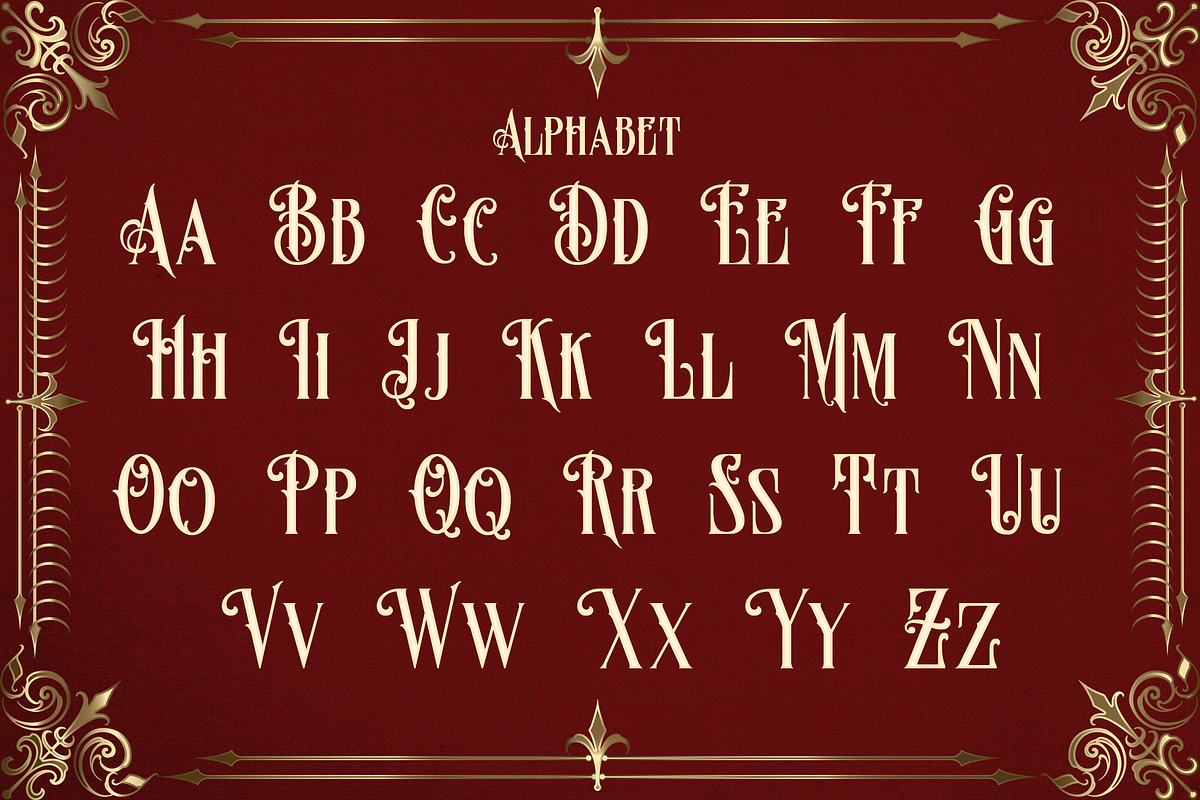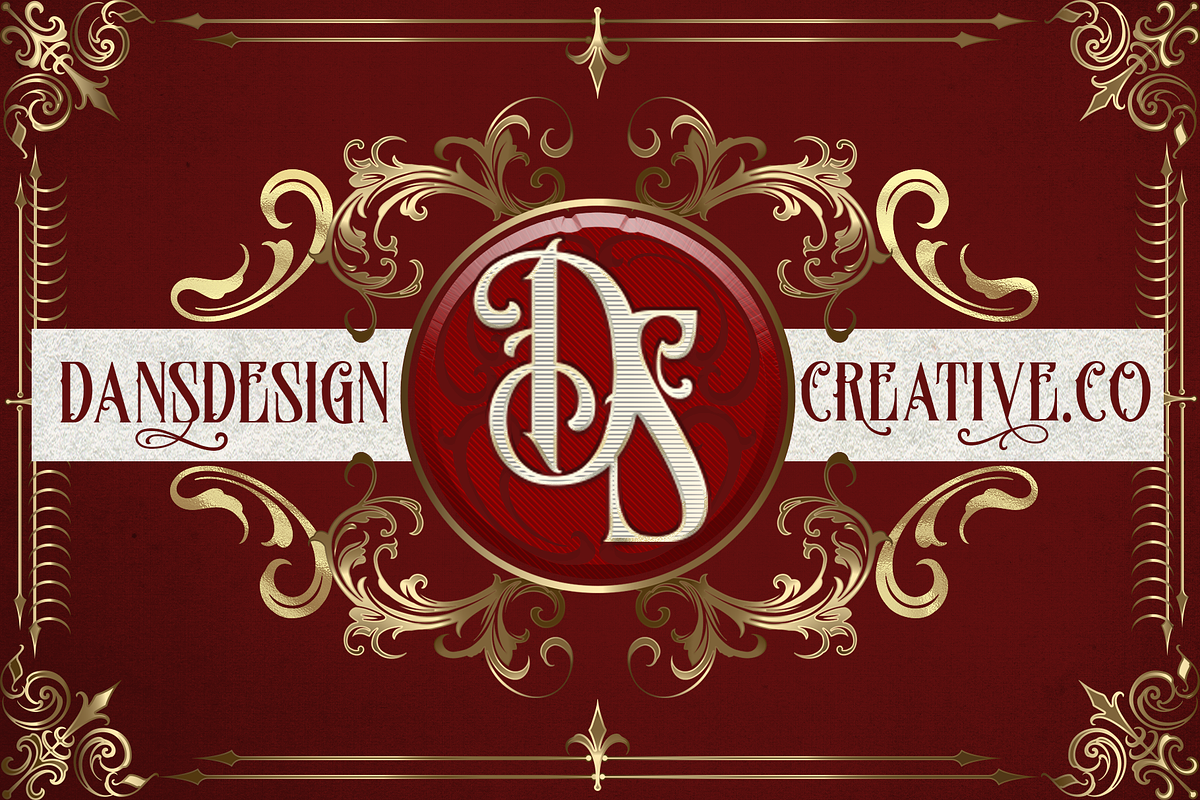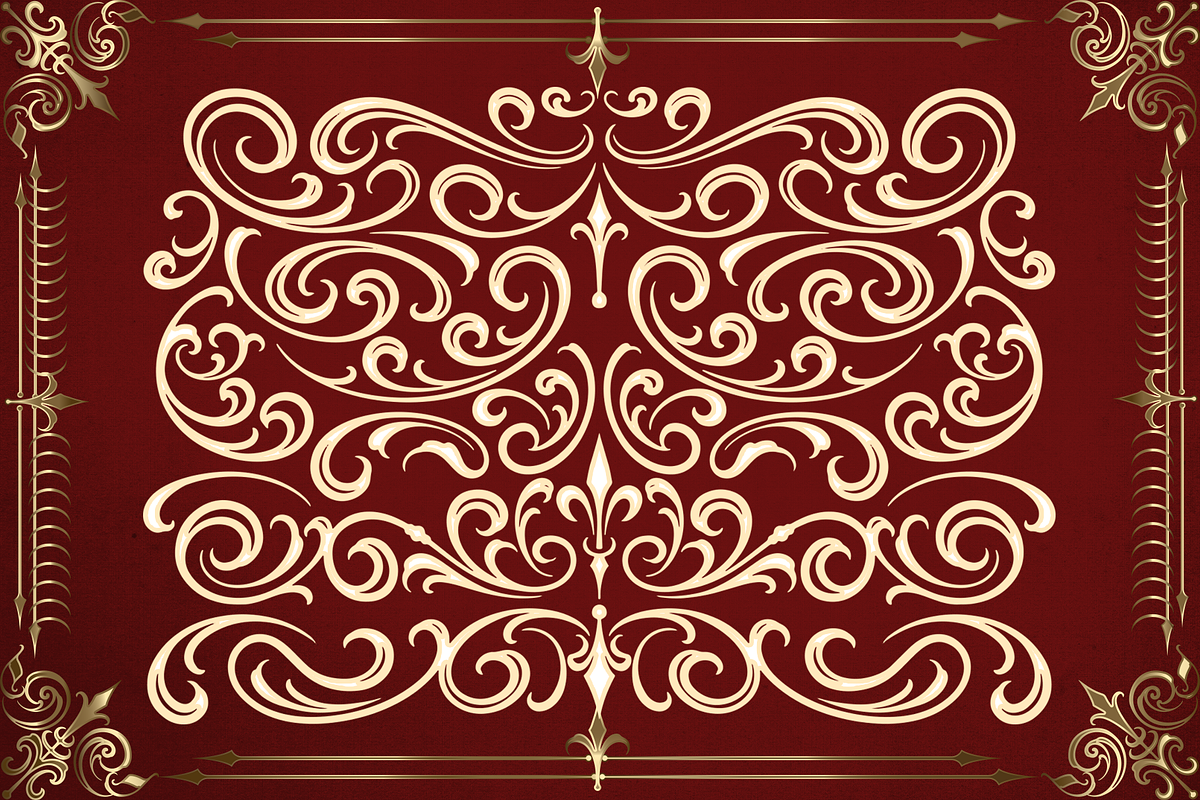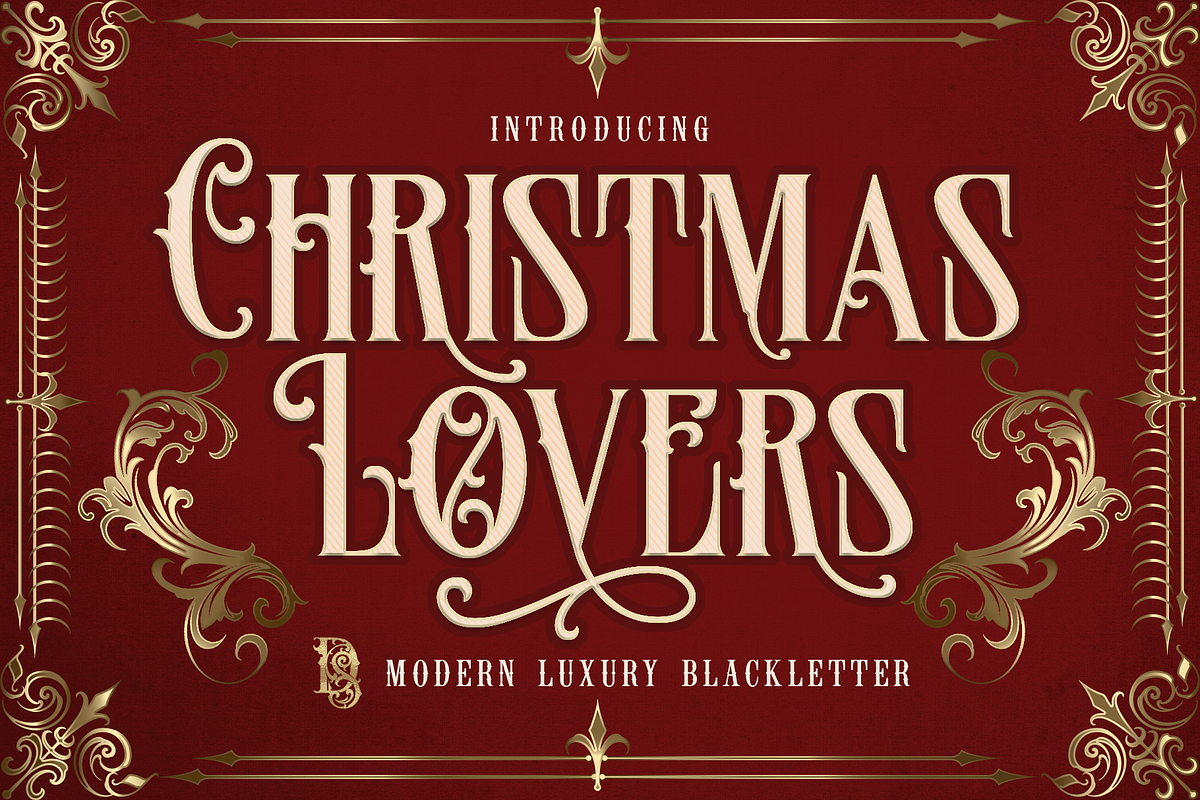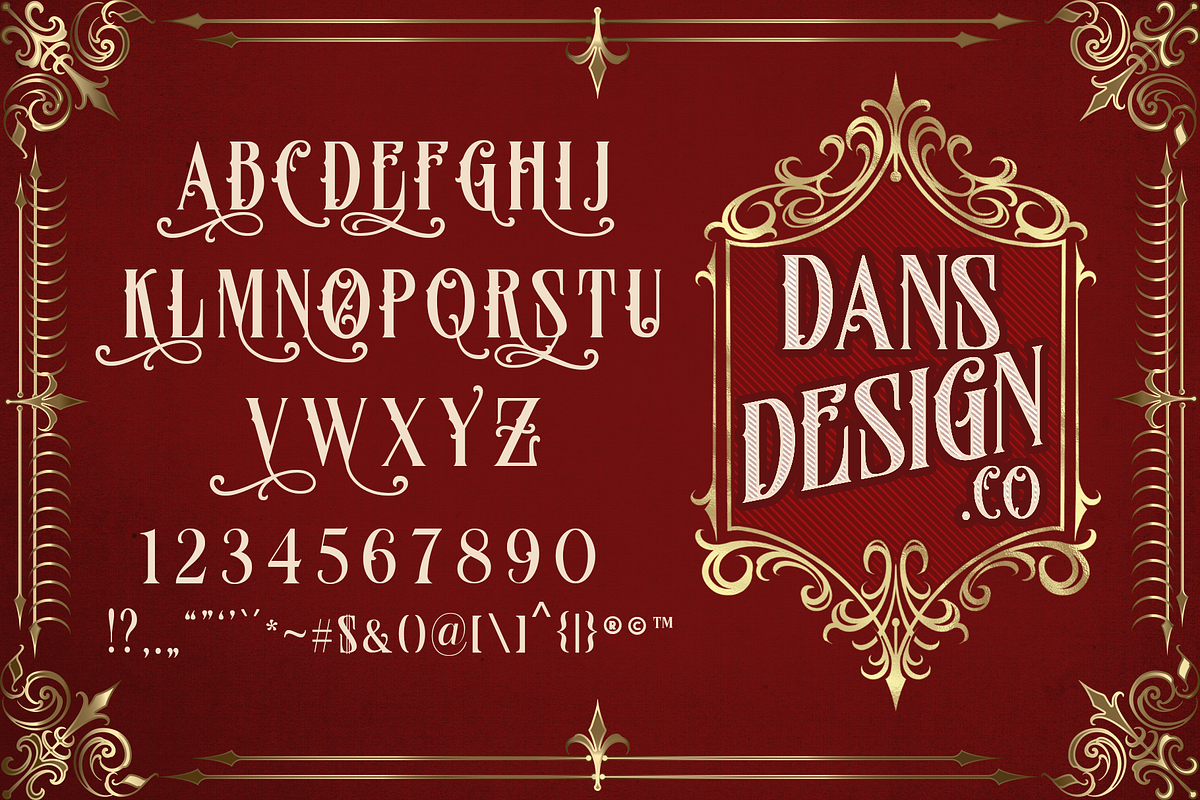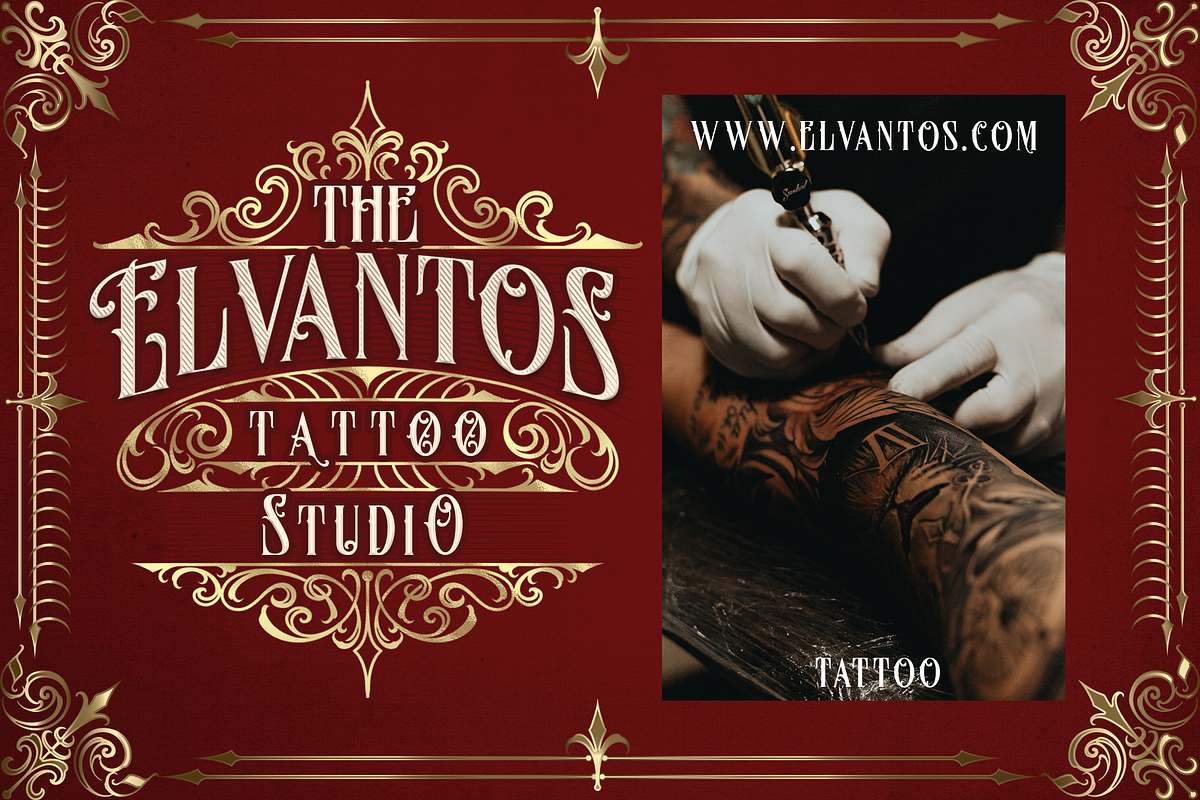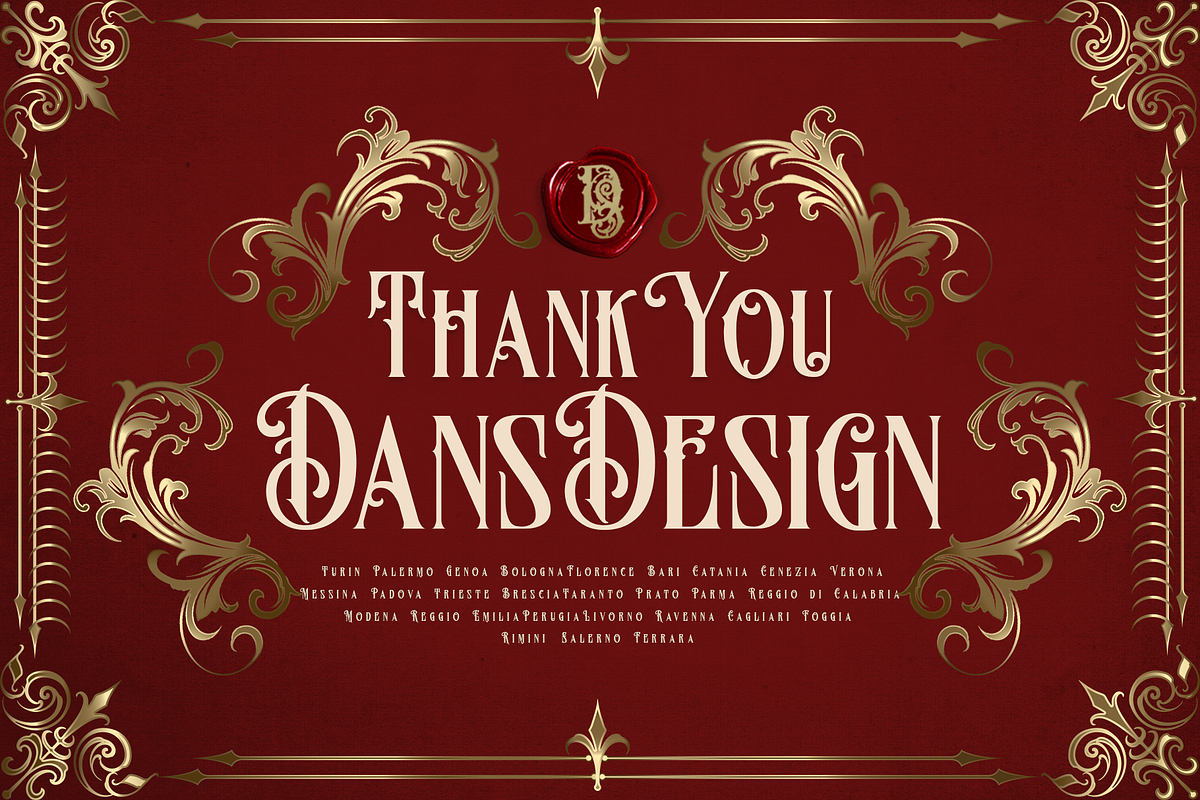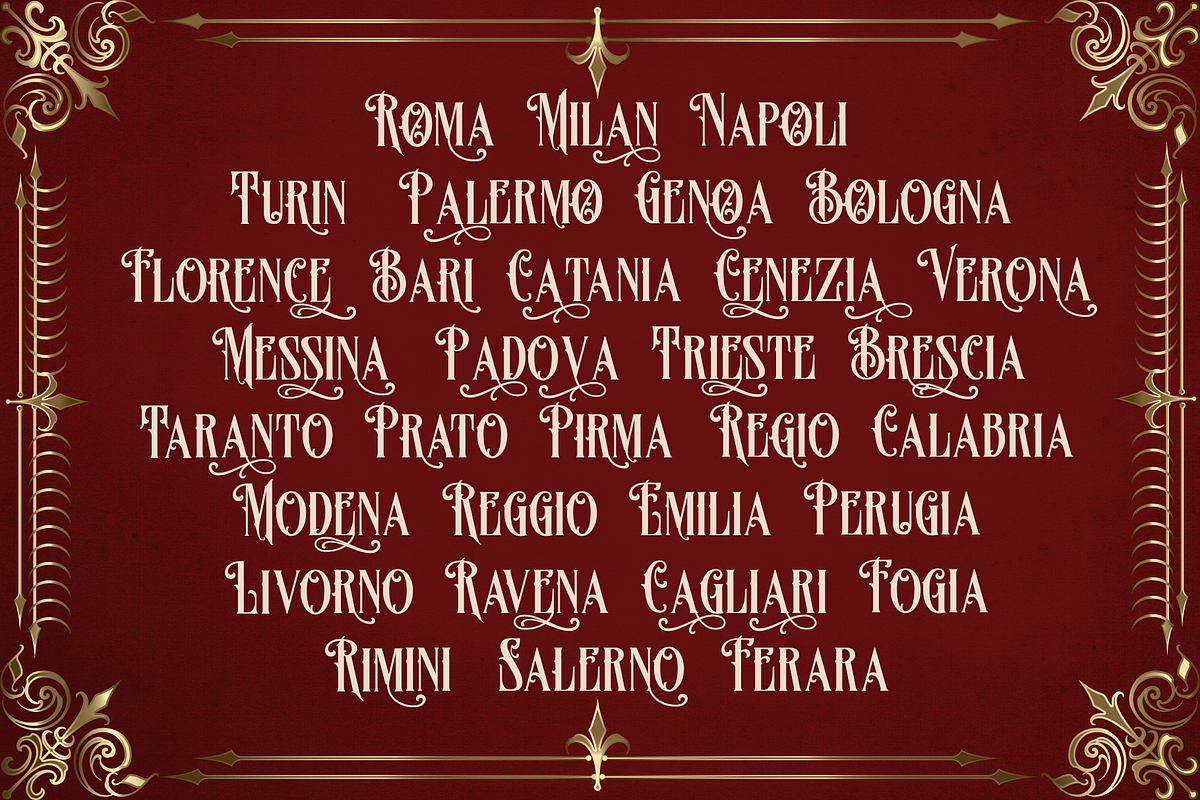
Christmas Lovers
Christmas Lovers is a victorian styled and distinct blackletter font. Fall for its ravishing style and use it to create gorgeous wedding invitations, beautiful stationary art, eye-catching social media posts, and much more!